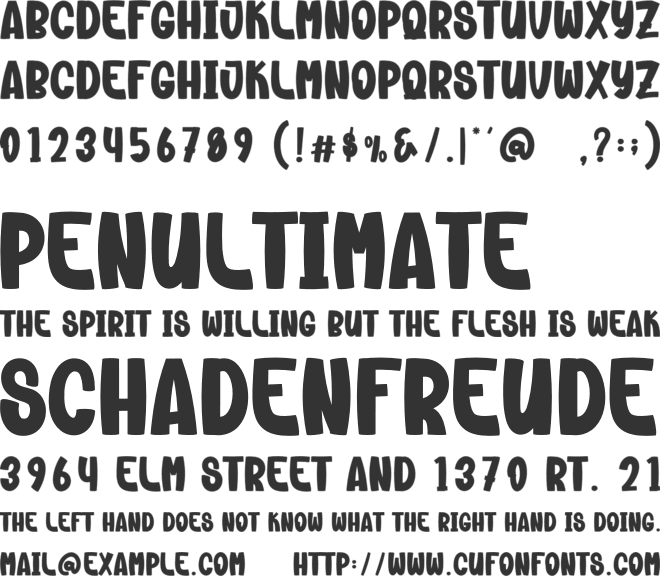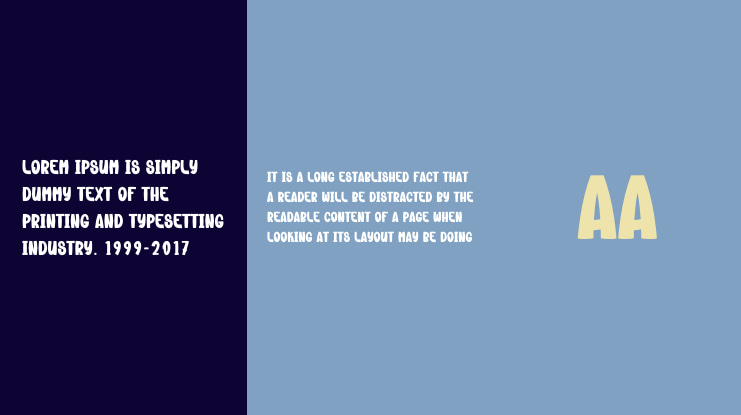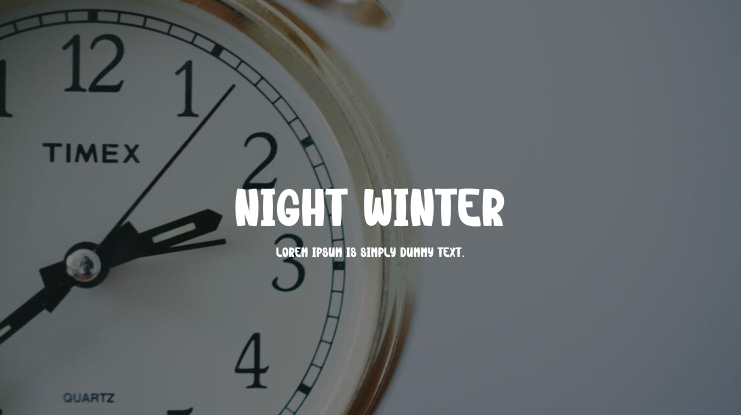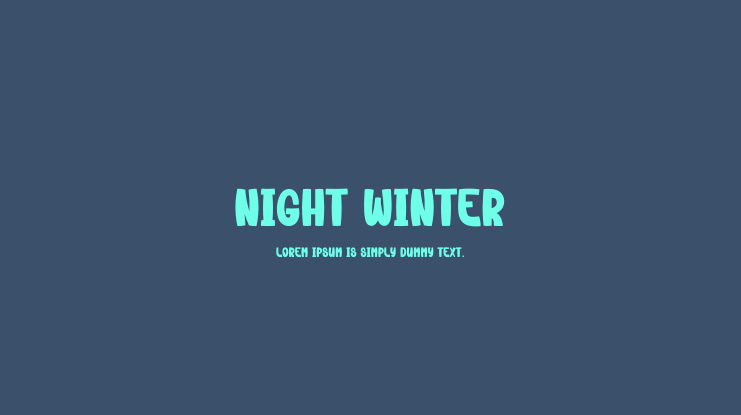
Our latest style fonts are perfect for various uses, including wall displays, wedding invitations, social media post logos, advertisements, product packaging, product designs, labels, photography, watermarks, invitations, stationery, and any project that requires tasteful handwriting.